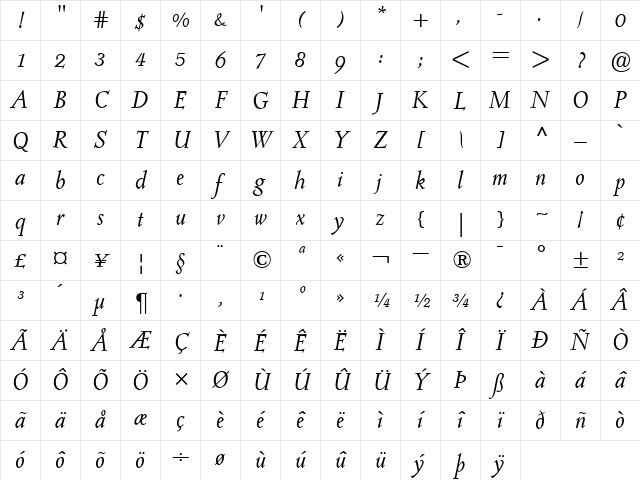
PostMediaeval RomanItalic
Style: RomanItalic
Design Context for PostMediaeval
PostMediaeval is a composed and adaptable typeface that performs quietly and consistently across a wide range of design contexts. The slanted form adds forward momentum and visual energy.
Pro Tip: Use PostMediaeval for emphasis, pull quotes, and subheadings where its slanted energy can add rhythm to the layout.